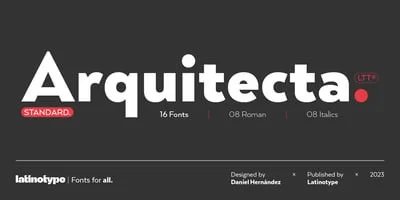
Arquitecta Standard Font
Arquitecta Standard Font is perfect for architectural firms, construction company branding, engineering documentation, blueprint presentations, urban planning materials, structural design proposals, real estate development projects, and professional building industry communications.
What makes Arquitecta Standard Font exciting is its structural precision that embodies the mathematical accuracy and design excellence of architectural practice through clean, geometric letterforms. This professional typeface features precise construction with technical clarity that evokes the methodical planning and structural integrity of architectural blueprints, making it ideal for projects requiring engineering credibility and the representation of built environment expertise in their professional communications.
The Arquitecta Standard Font family includes multiple weights from light to black, plus technical variations and architectural drawing-inspired elements that enhance the structural aesthetic with blueprint styling options and engineering typography elements for construction industry applications.
This professional typeface delivers exceptional architectural authority and technical precision, making Arquitecta Standard Font an invaluable resource for building and design industry projects. The font's structural character makes it perfect for firms wanting to communicate engineering excellence and architectural sophistication in their brand identity. Architecture studios and construction companies particularly value its ability to convey professional competence and design integrity instantly to clients and industry professionals. The precisely engineered letterforms ensure optimal readability while preserving the technical appeal of architectural practice across all applications from project proposals to construction documentation. Whether you're creating materials for urban development projects or developing branding for structural engineering firms, this font provides the perfect combination of technical authenticity and professional presentation. Creative professionals consistently choose this typeface for projects requiring that ideal balance of architectural credibility and commercial effectiveness, making it essential for building industry communications that celebrate both design innovation and structural reliability.